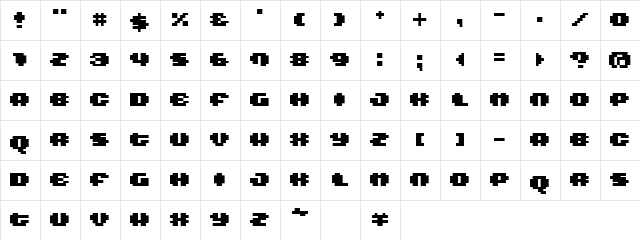
BM dumpling A9
Design Context for BM dumpling Typeface
BM dumpling is a composed and adaptable typeface that performs quietly and consistently across a wide range of design contexts.